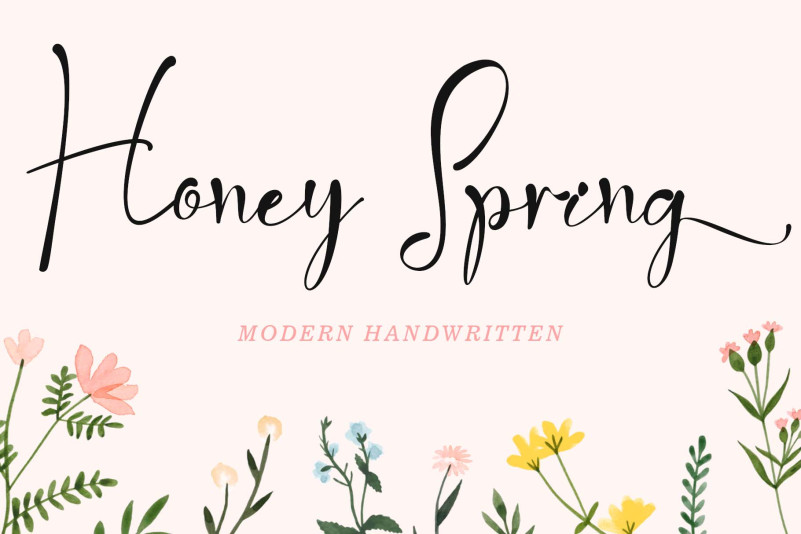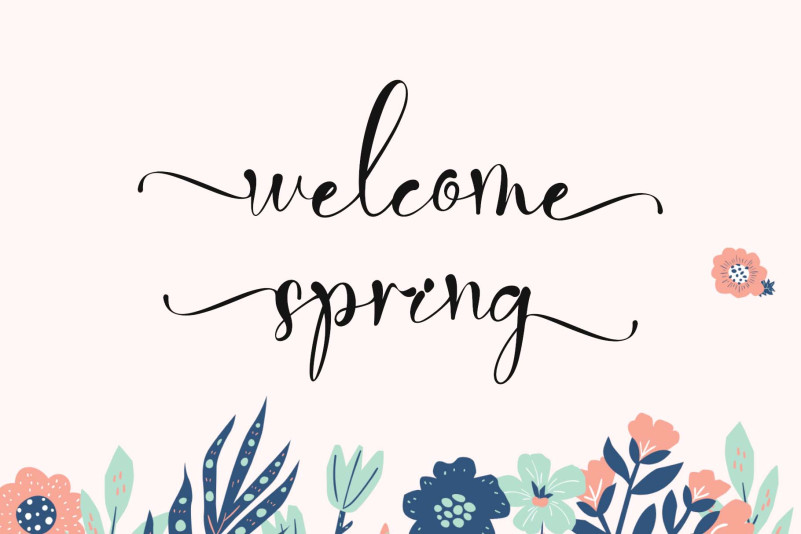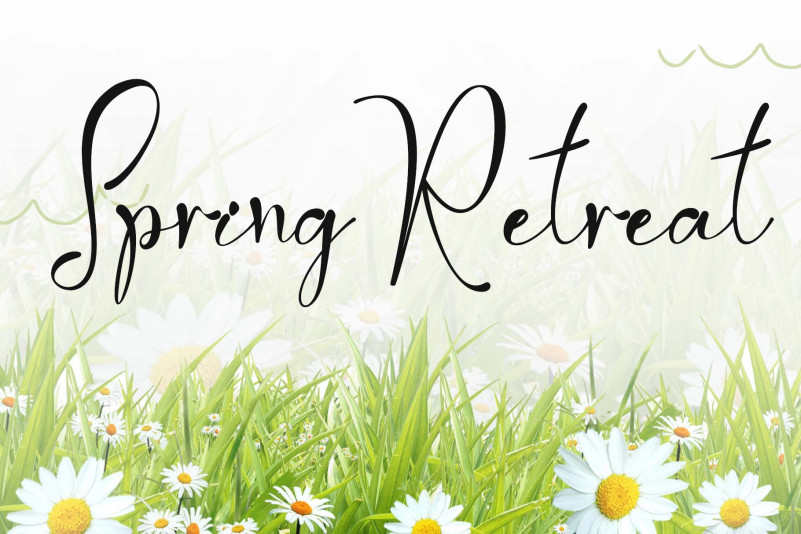
Honey Spring Font
Honey Spring Script Font is a natural and elegant handwritten modern font. Whether you’re looking for fonts for Instagram or calligraphy scripts for DIY projects, this font will turn any creative idea into a true piece of art!